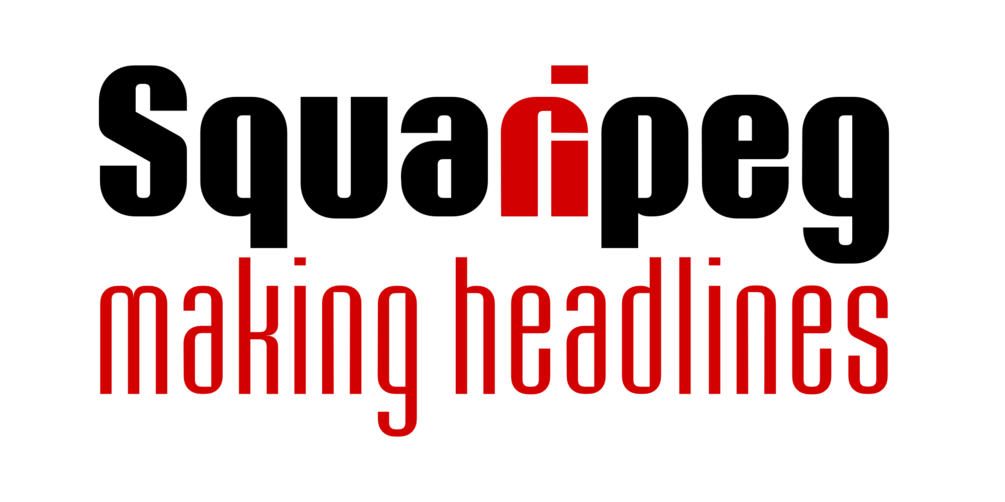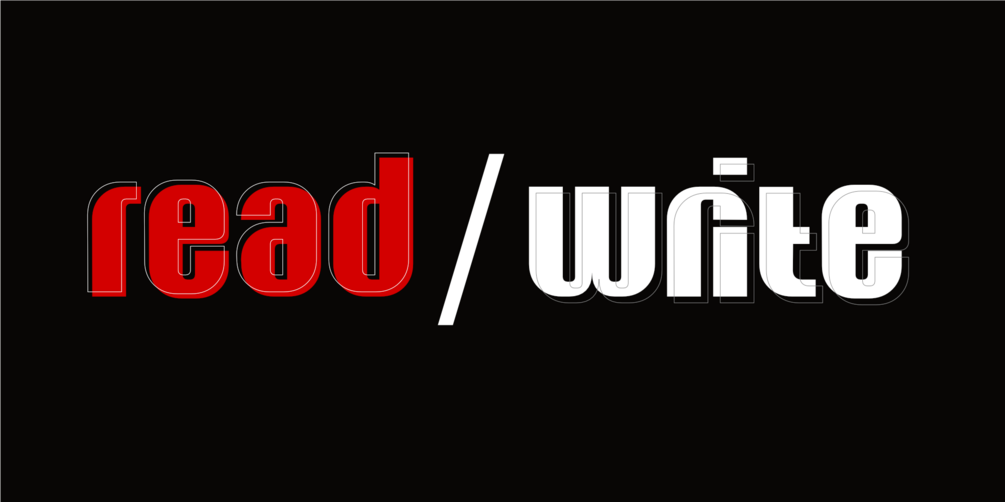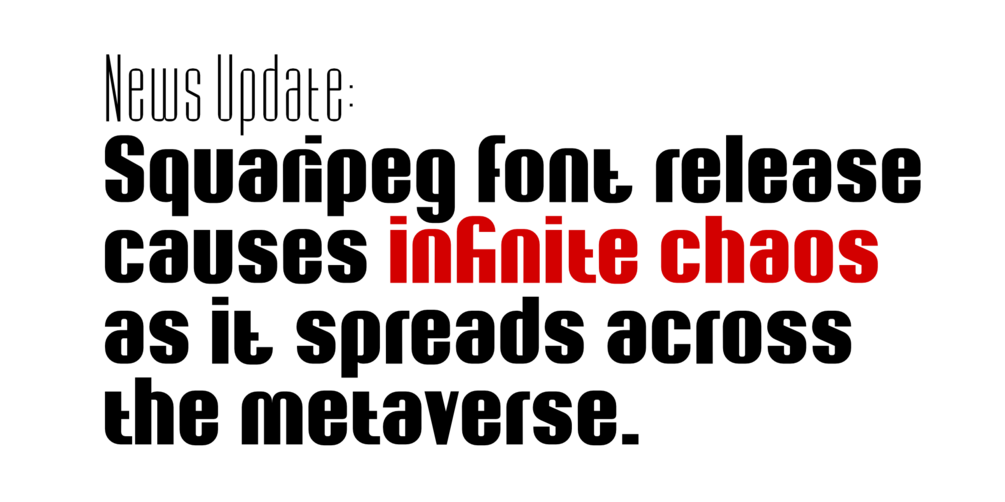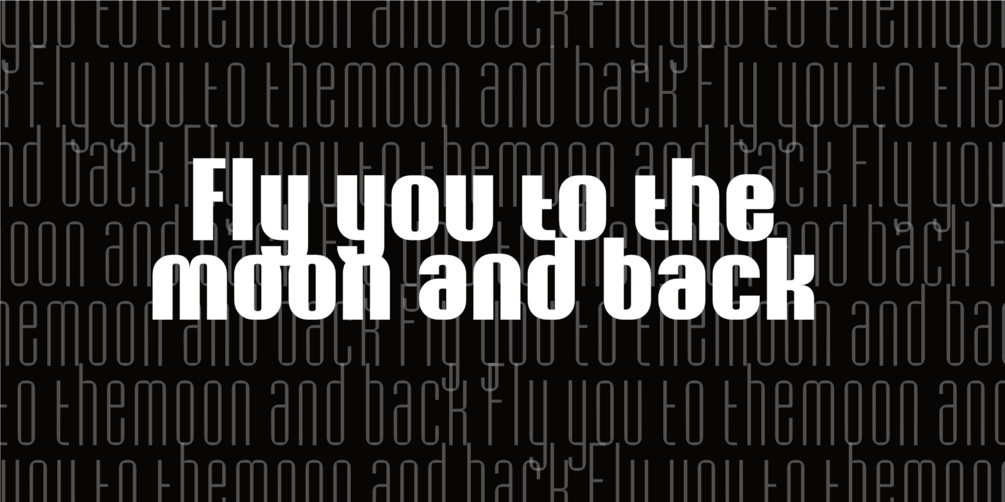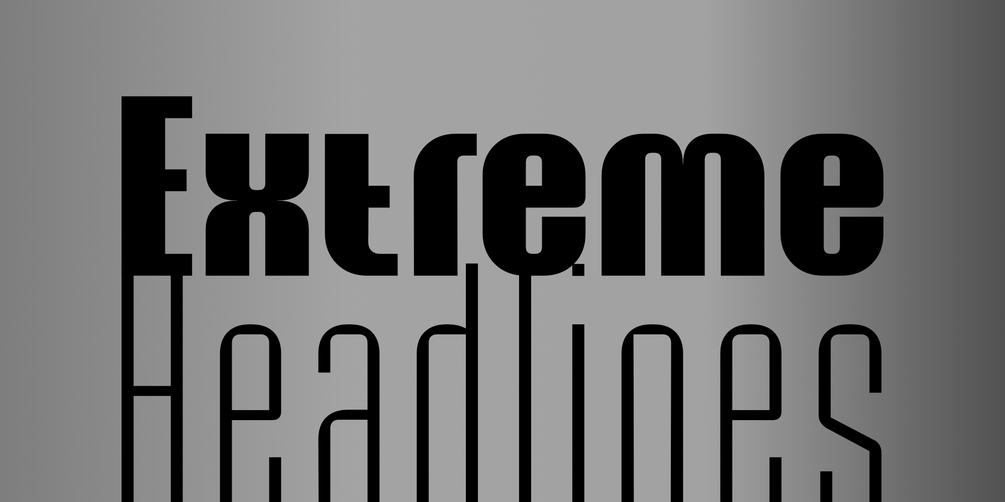
The funky square typeface – SquariPeg Regular
Squaripeg is a funky square typeface with geometric shapes to create space-saving but impactful headlines and web banners. Now available in 8 weights of square funkiness.
Squaripeg is a funky square typeface with geometric shapes to create impactful headlines and web banners.
The typeface was designed so that it takes up less horizontal space but still has a lot of impact on the page. Some letters have been combined into one unit to save further space.
About this font family
Squaripeg is a funky square typeface with geometric shapes to create impactful headlines and web banners.
This typeface was designed so that it takes up less horizontal space but still has a lot of prominence on the page. Some letters have been combined into one unit to save further space.
Features
• Multi language
• Ligatures